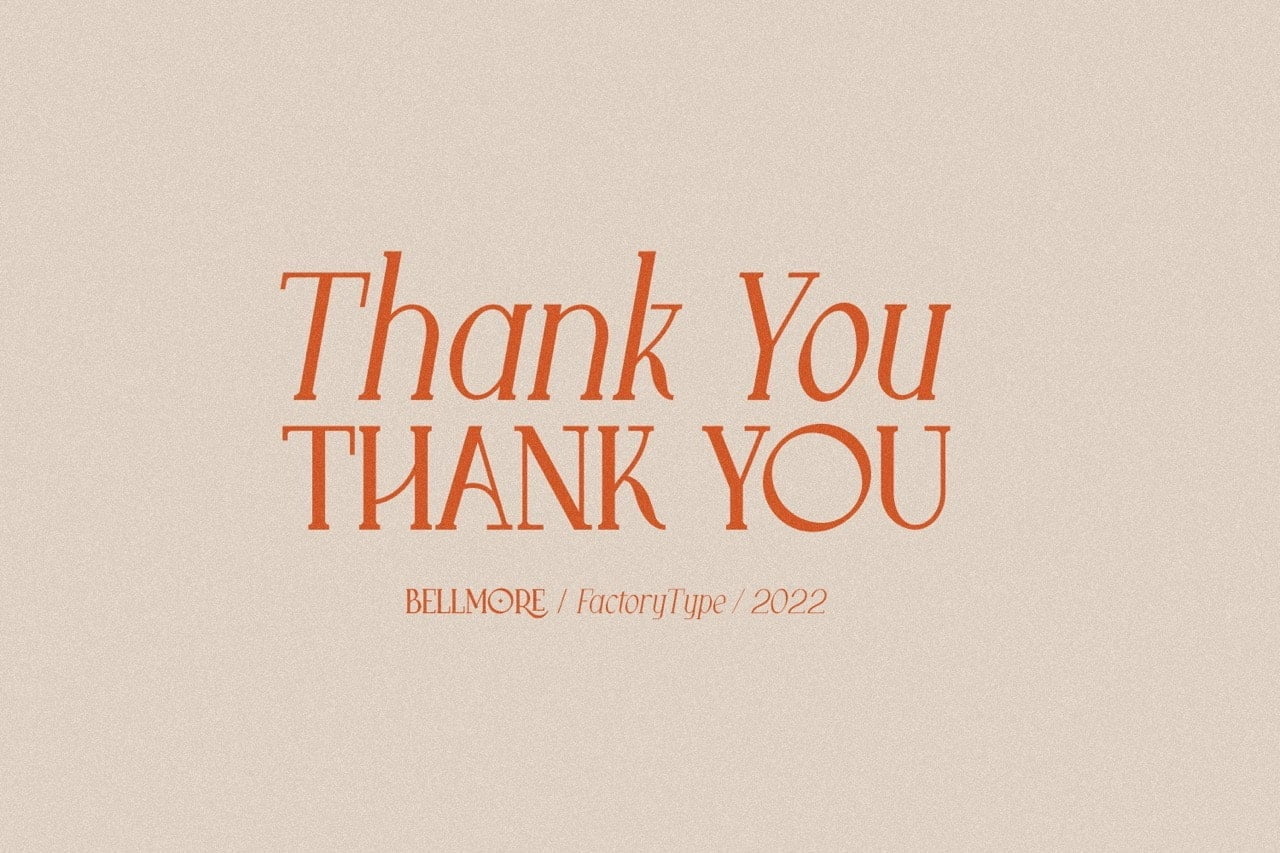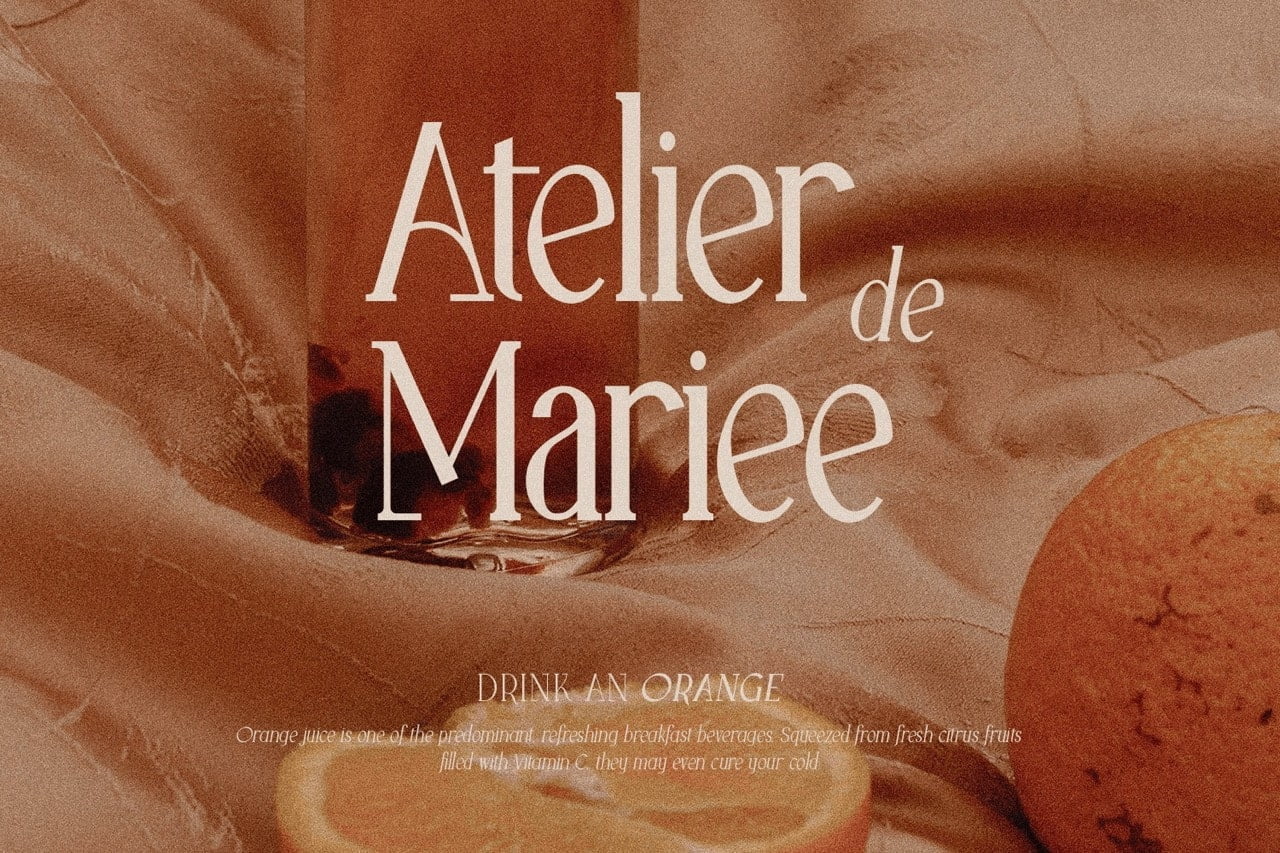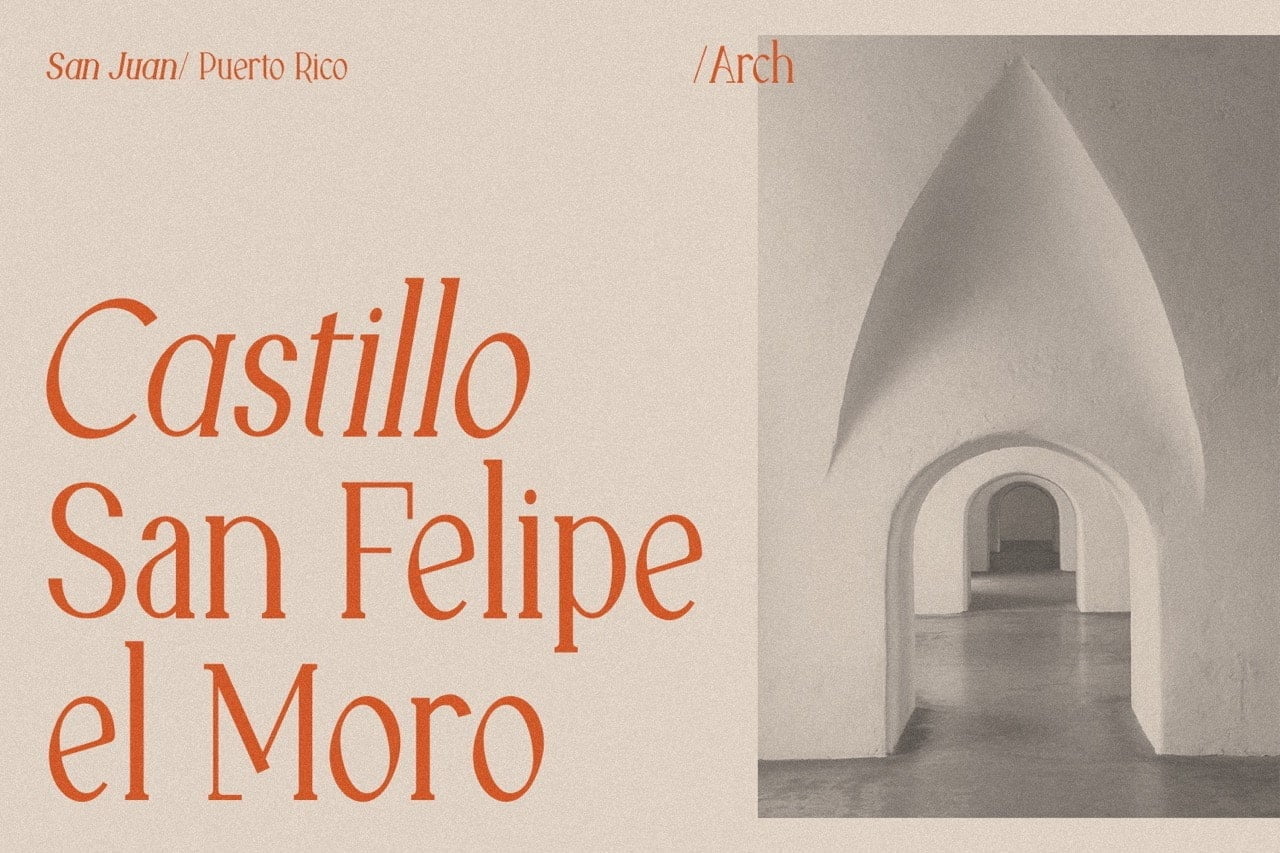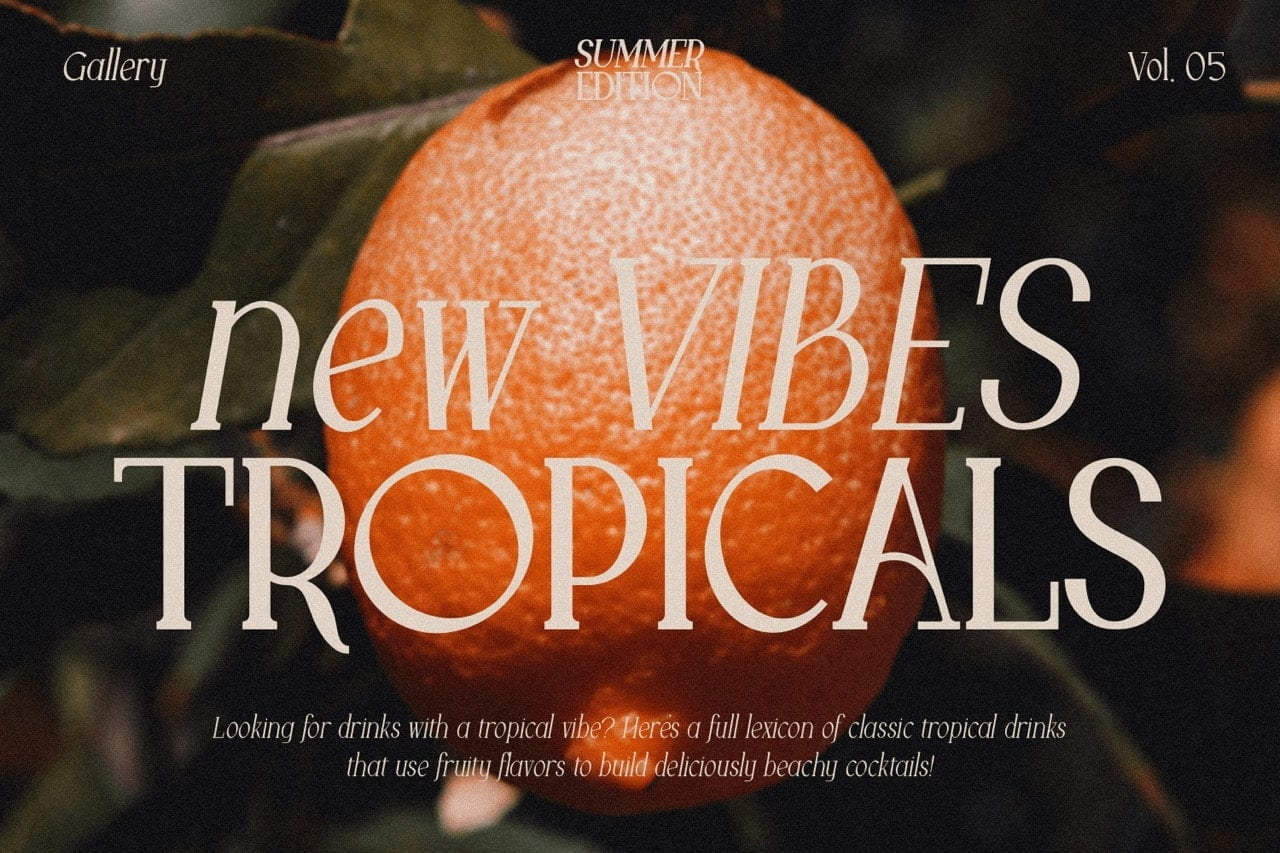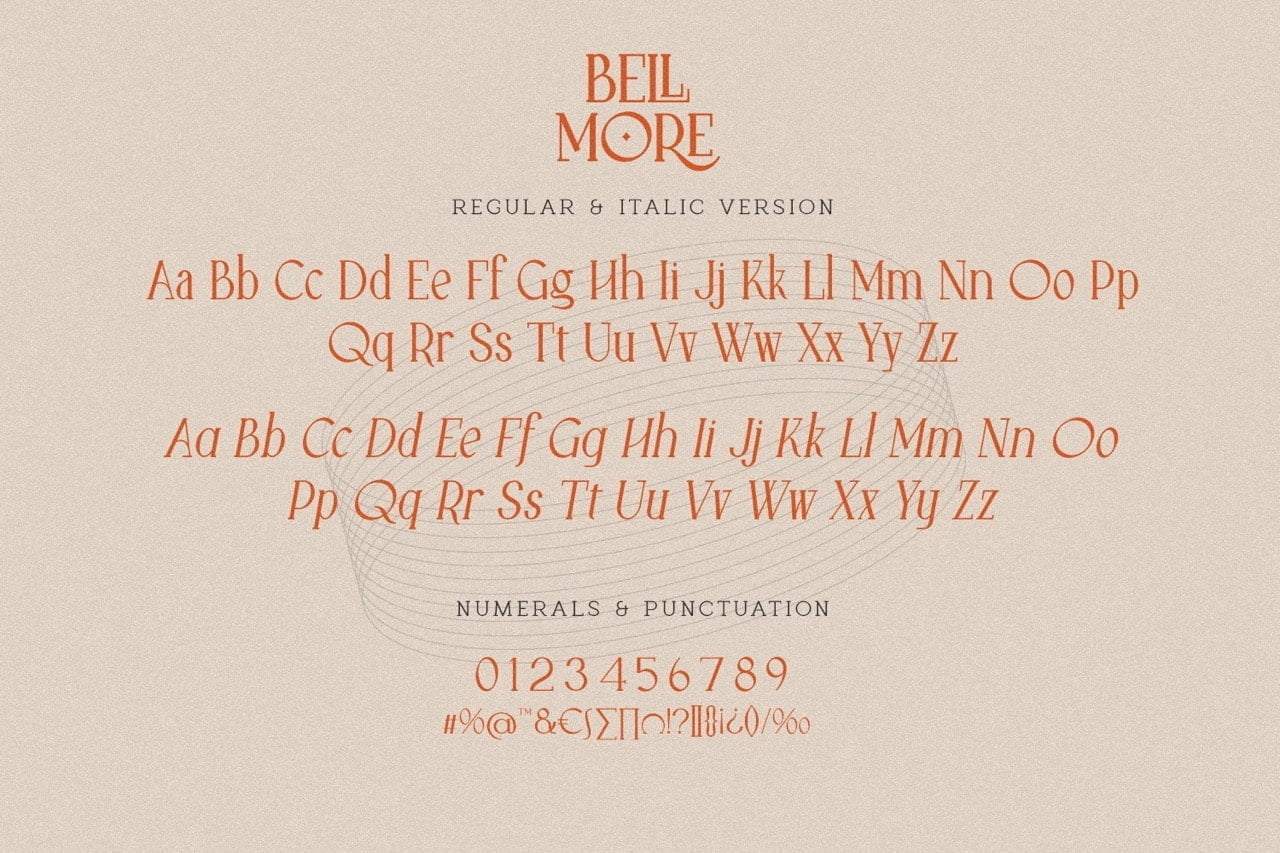
Bellmore is a beautiful serif font family with a classic feel to it. The elegant design is the result of combining modern and vintage elements. The different weights give you a lot of flexibility when it comes to choosing the right typographic color for your project. The available Ligatures and Italic styles offer a wide range of characters to give your project design an unique design.
- 5 Weights (Light, Regular, Semibold, Bold, Black)
- 2 Styles (Regular and Italic)
- Stylistic Ligatures and Alternate Glyphs
BellMore Serif